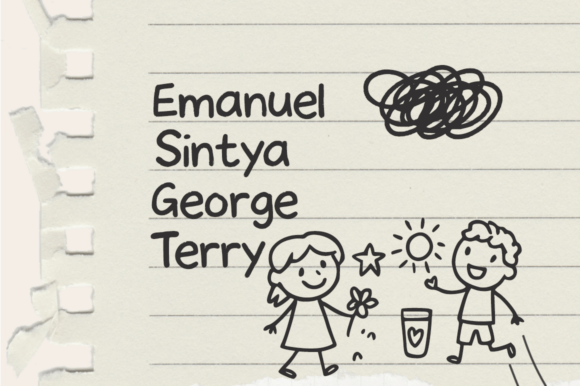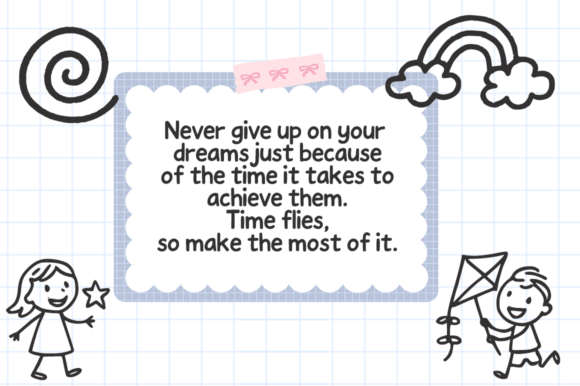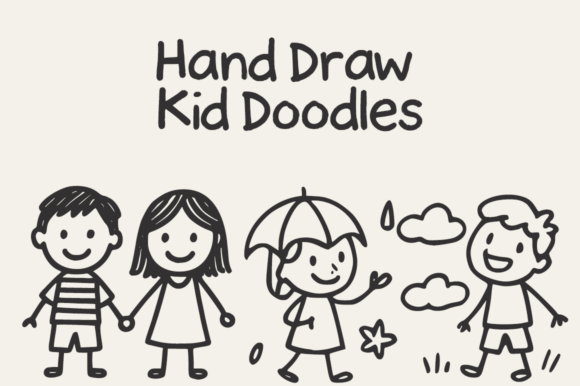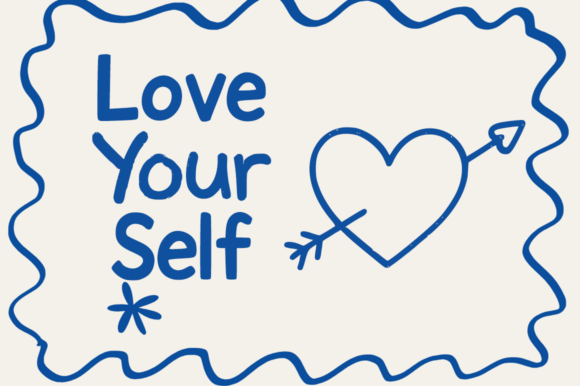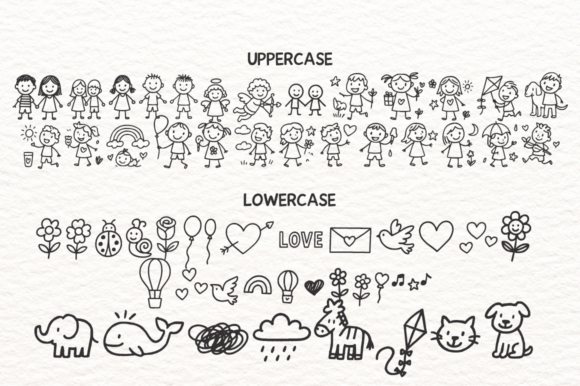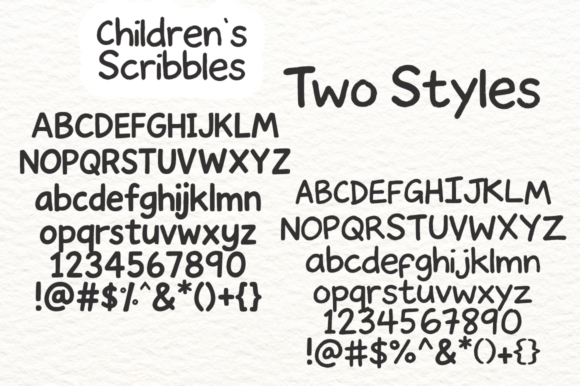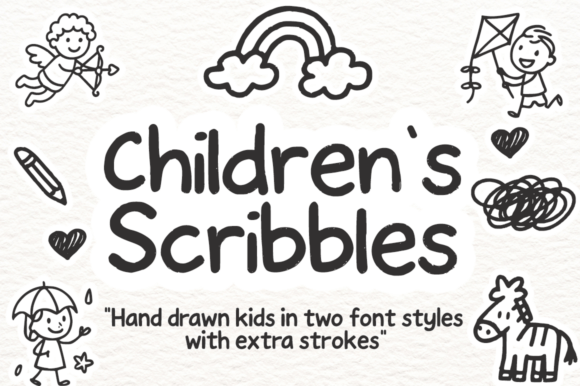
Unleash the Inner Child in Your Designs with Children’s Scribbles Font
Are you looking for a font that can add a touch of whimsy and playfulness to your designs? Look no further than Children’s Scribbles, a delightful Kids Doodle Font that is sure to bring a smile to your face. This charming font is characterized by quirky handwriting and the imaginative doodlings of children, making it perfect for any project that requires a light-hearted and distinctive touch.
The Inspiration Behind Children’s Scribbles
Children’s Scribbles is designed to emulate the simple scribbles of a child learning their ABCs. Each letter and symbol is carefully crafted to capture the essence of a child’s creative expression, resulting in a font that is vivid, spontaneous, and endearing. The font features round, light, and legible letters that are beautifully complemented by irresistibly cute doodle elements, creating a truly unique and captivating visual experience.
A Font that Embodies a Cheerful and Fun Learning Environment
Children’s Scribbles is more than just a font – it’s an experience. It encapsulates the joy and imagination of a child’s learning environment, making it perfect for educational materials, printable activities, and engaging classroom decor. The font includes a range of delightful decorations, such as figures of children at play, animals, clouds, hearts, stars, and more, which will add a touch of magic to any design.
Perfect for Child-Related Designs
Whether you’re a designer, teacher, or parent, Children’s Scribbles is the perfect font for any child-related project. From posters and invitations for kid’s events, to school projects, children’s books, and nursery room decor, this font is sure to delight. Its vibrant aesthetics and playful charm make it an excellent choice for anyone looking to create engaging and fun designs that will capture the imagination of children and adults alike.
Key Features of Children’s Scribbles Font
- Quirky handwriting and whimsical doodlings
- Round, light, and legible letters
- Irresistibly cute doodle elements, including figures of children at play, animals, clouds, hearts, stars, and more
- Perfect for educational materials, printable activities, and engaging classroom decor
- Suitable for posters, invitations, school projects, children’s books, and nursery room decor
Tips for Using Children’s Scribbles Font
To get the most out of Children’s Scribbles, here are a few tips:
- Use it for headings and titles to add a touch of whimsy and playfulness
- Pair it with other fonts to create a unique and eye-catching combination
- Experiment with different colors and textures to enhance the font’s vibrant aesthetics
- Don’t be afraid to get creative and add your own doodle elements to make your design truly unique
Children’s Scribbles Font is a delightful and charming font that is sure to bring a touch of magic to your designs. With its quirky handwriting, whimsical doodlings, and vibrant aesthetics, it’s the perfect choice for any child-related project. So why not unleash your inner child and give Children’s Scribbles a try? You won’t be disappointed!